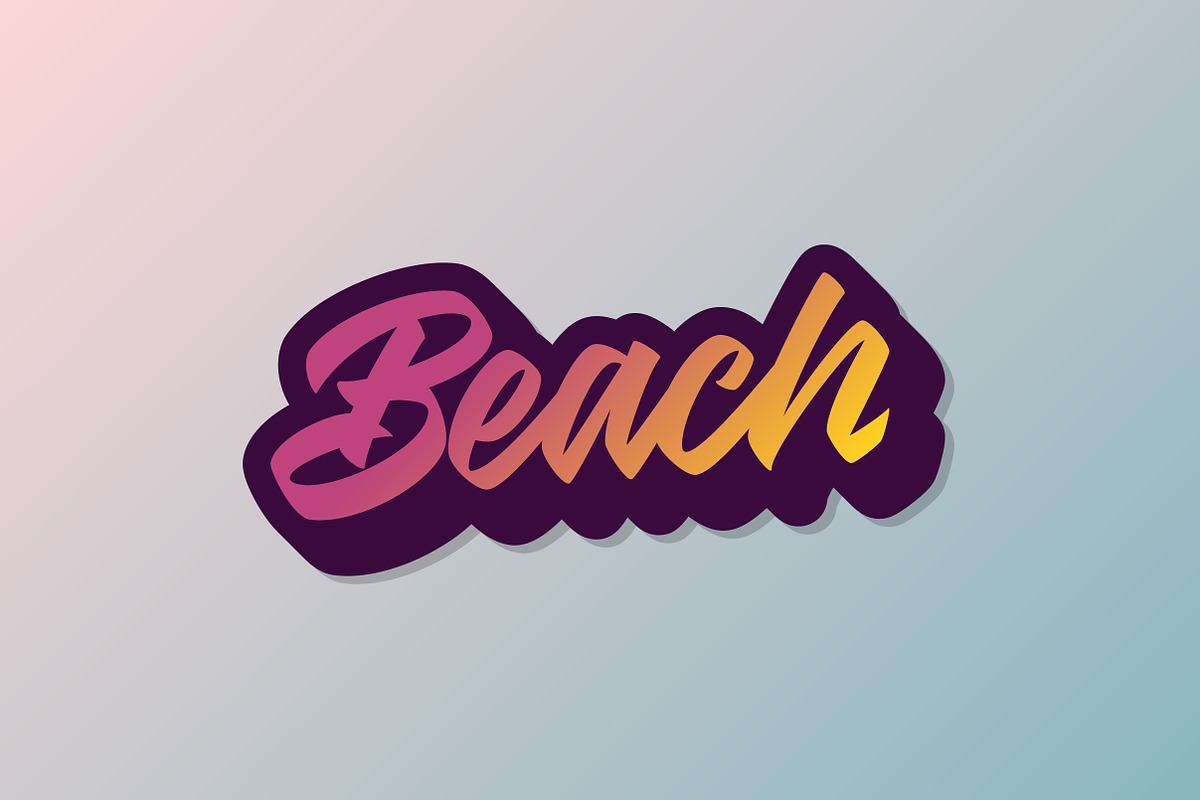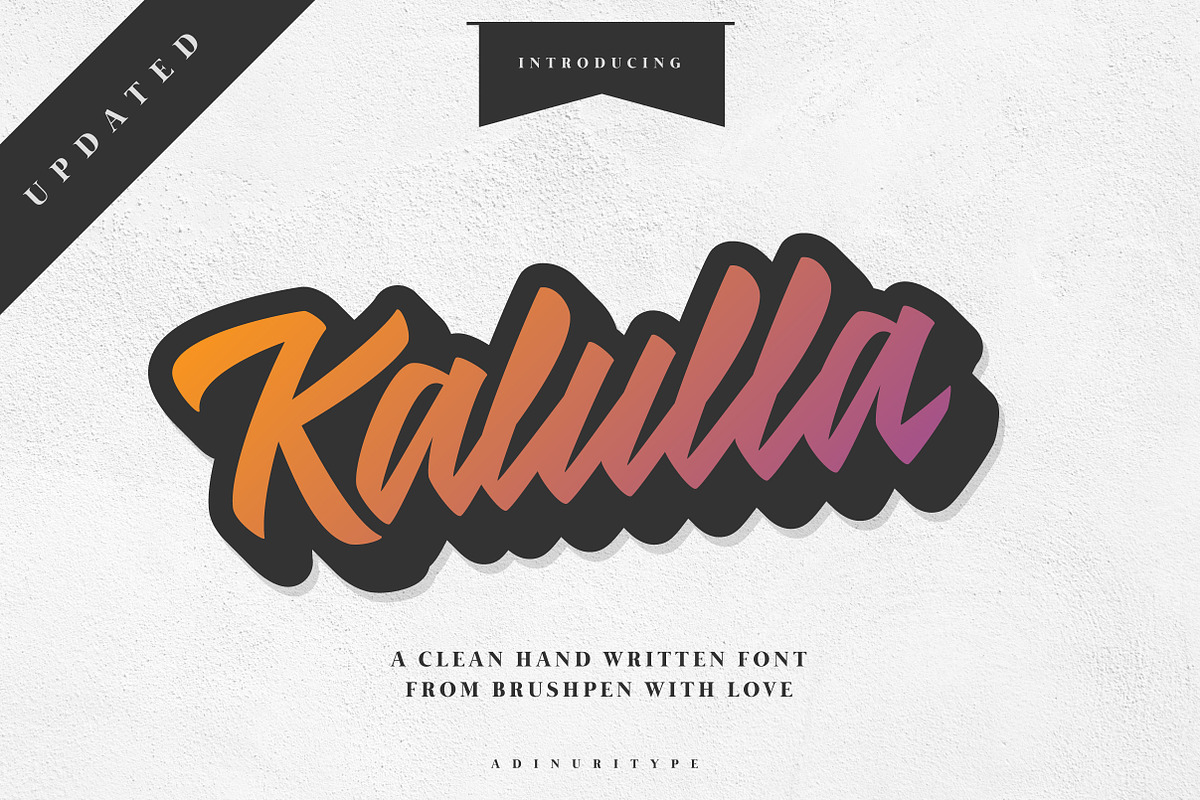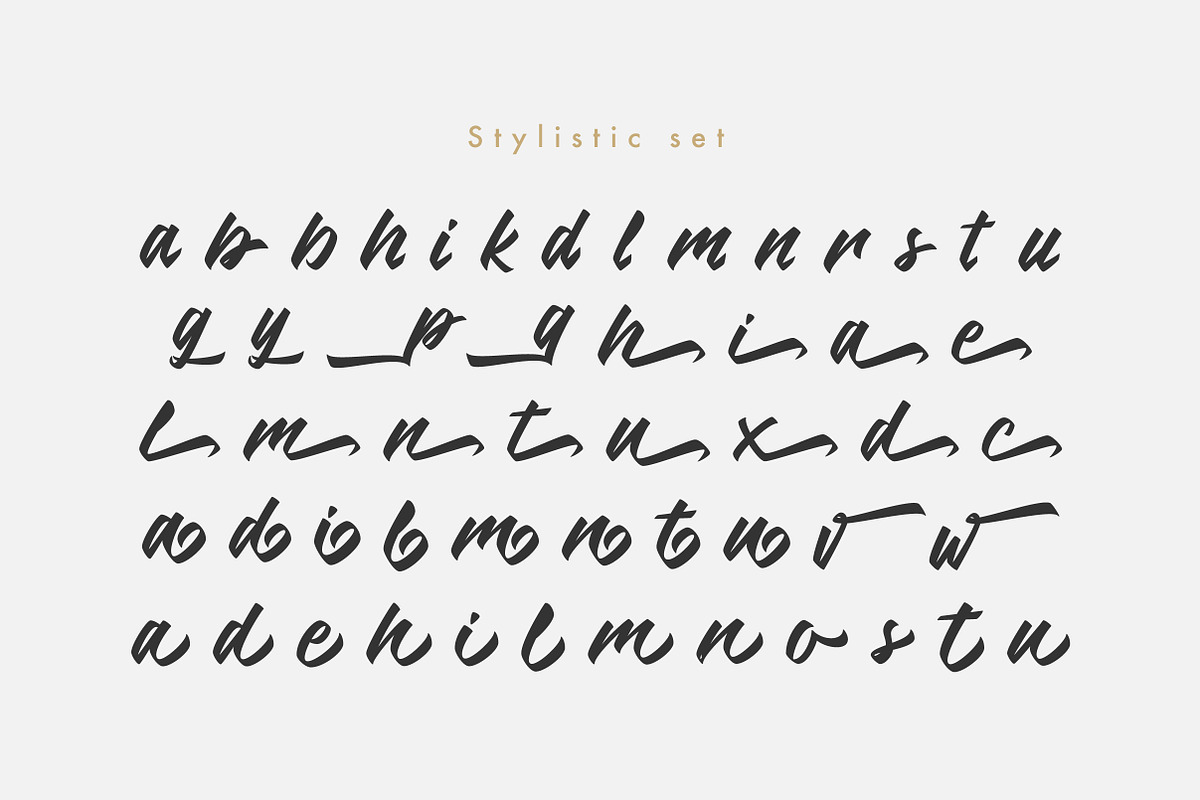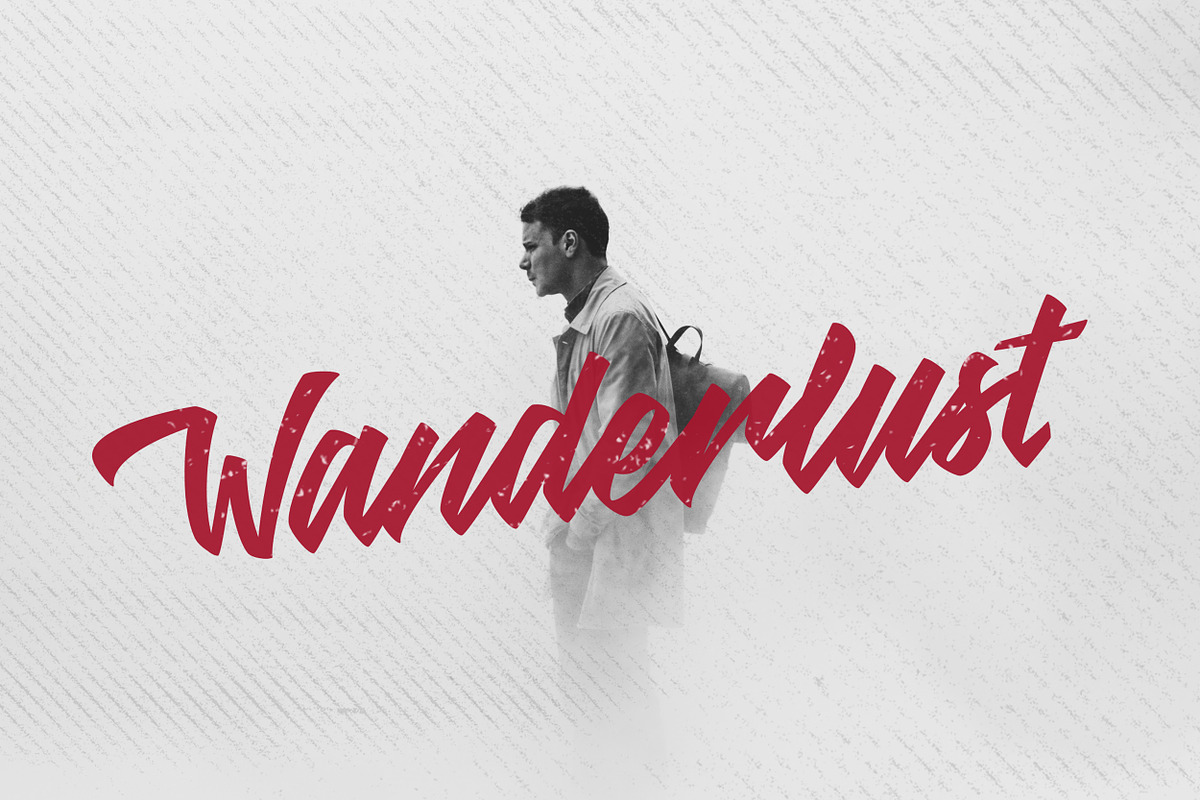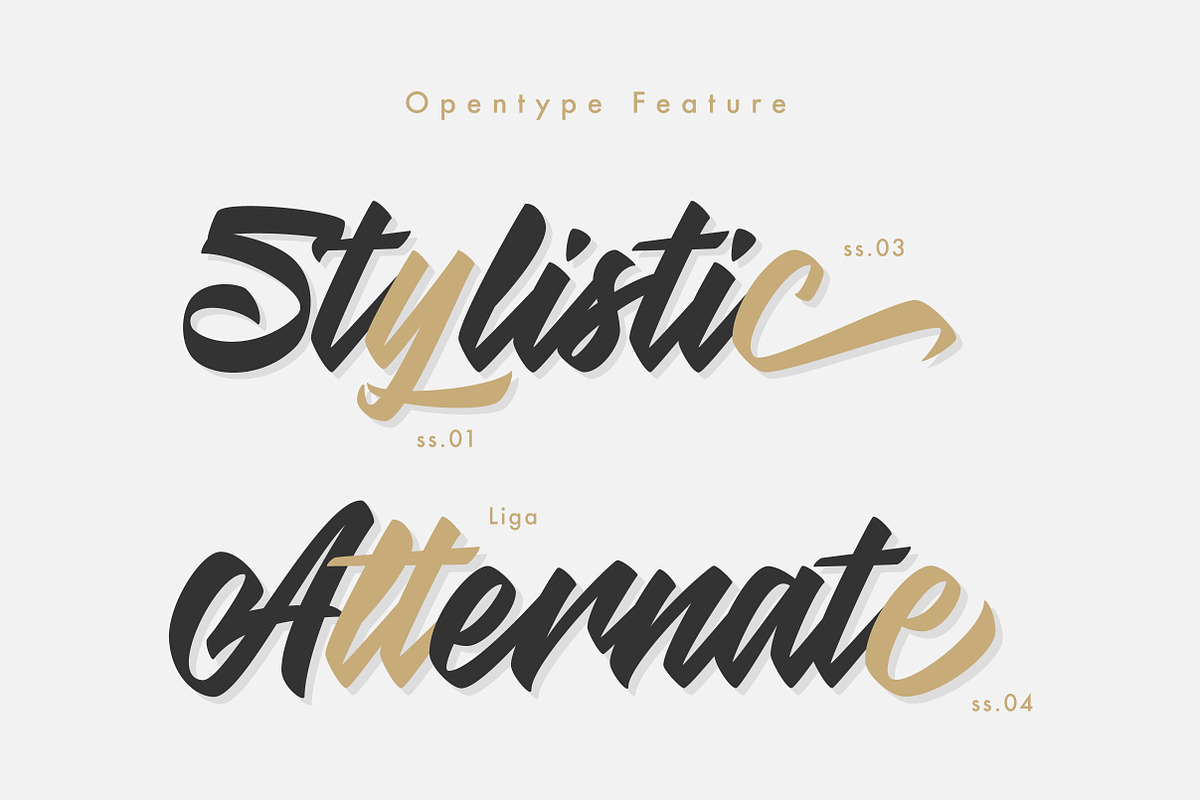
Kalulla Clean Script Font
Update add more Stylistic Sets (see gallery)
Kalulla is a hand written typeface with a Clean Elegant style. Created with Brush pen and digitalized with precision, it’s looks best for letterhead, Business card, Logo Design, Logotype, Poster Headline, and etc.
Discreationary Ligatures
Kalulla Clean Script Font by adinuritype fits naturally into Branding, posters, packaging, typography.